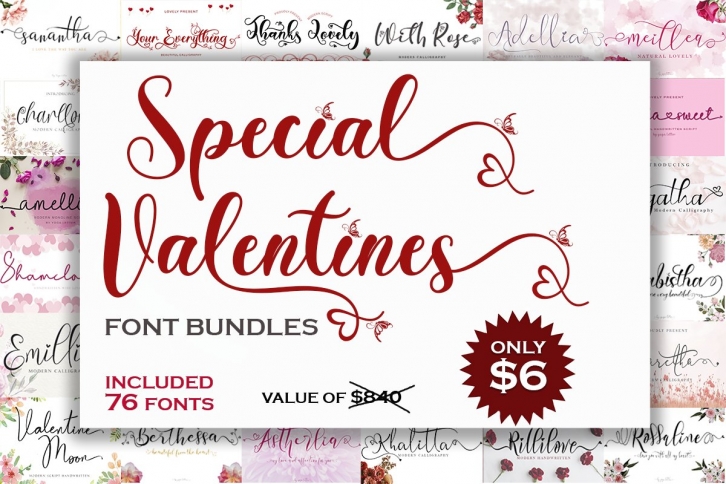
Special Valentines Bundle is a trendy and unique font with an authentic style. It was designed by yogaletter6 and it's a great choice for creative people who need such a font. It was released on December 21, 2021 and the file size is 9.38 MB. Special Valentines Bundle will add an organic vibe to any design idea!